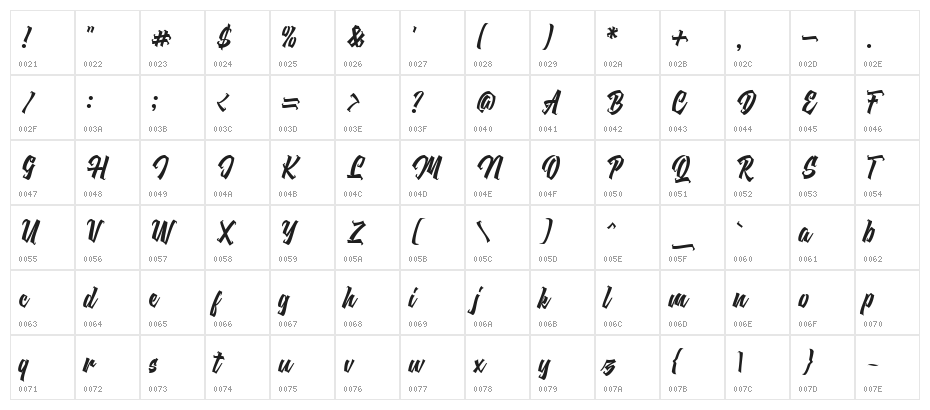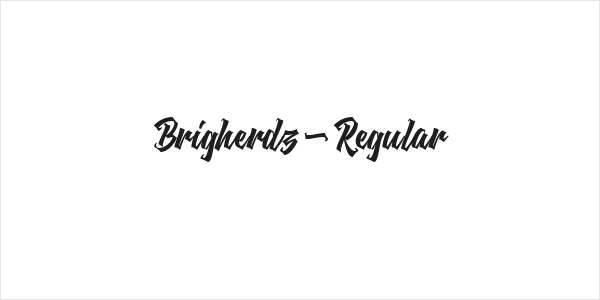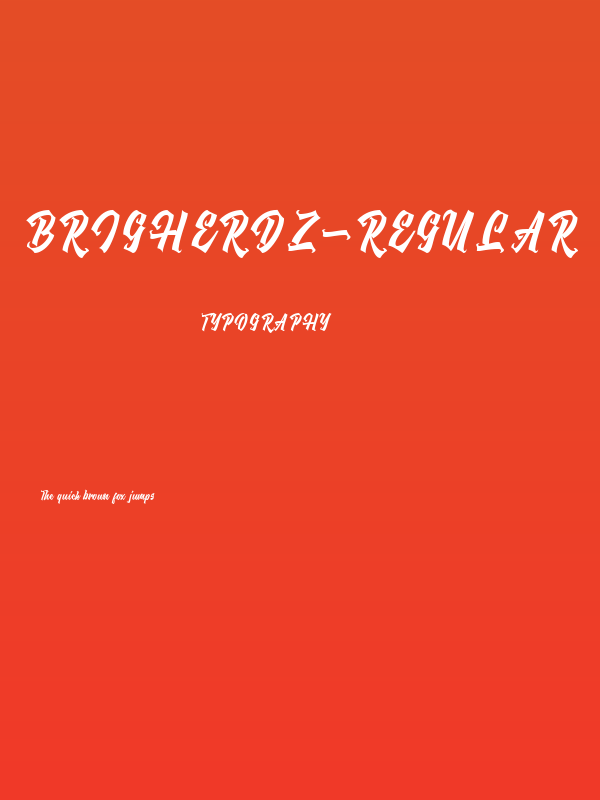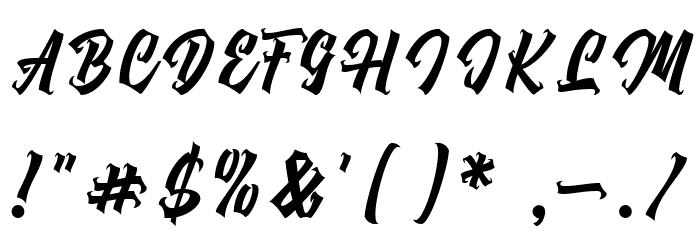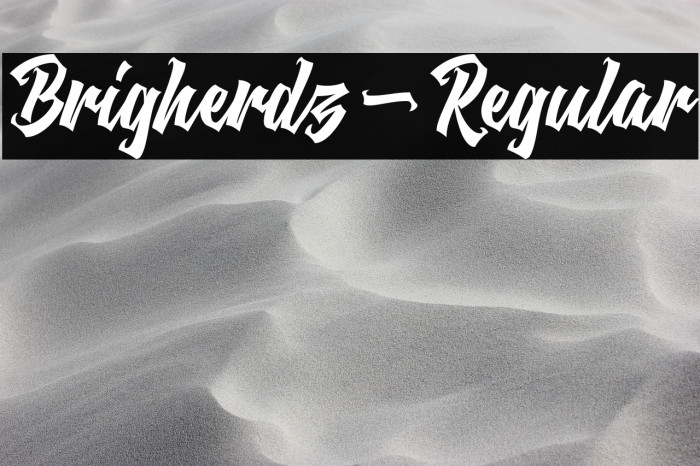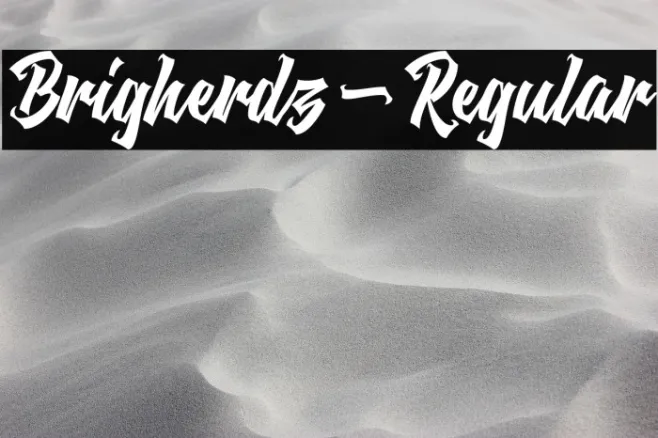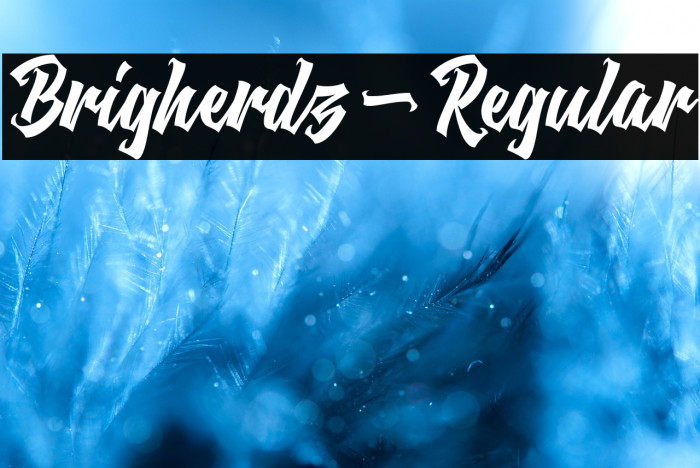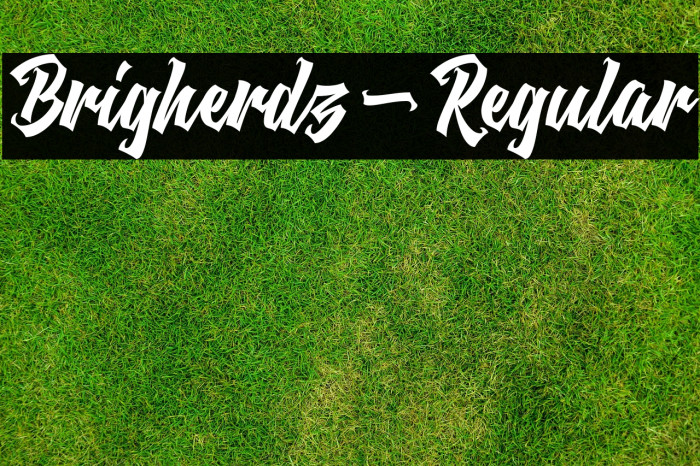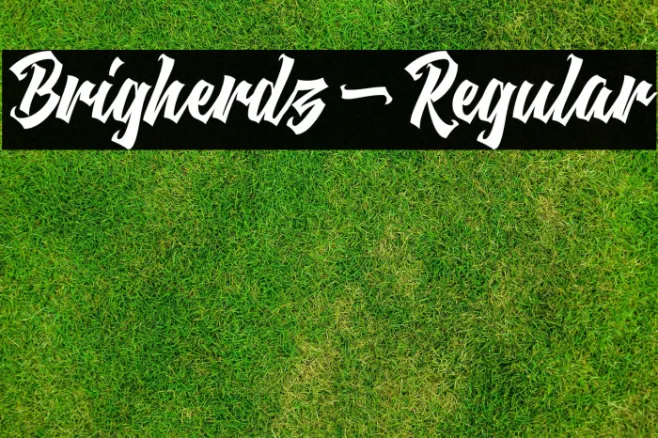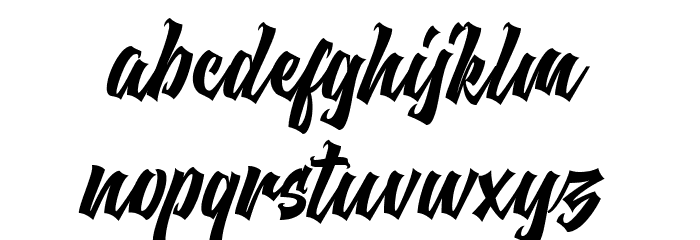
Brigherdz-Regular Font
This font exhibits a bold and dynamic script style with a strong presence. The characters are designed with sharp, angular strokes that give a sense of movement and energy. The uppercase letters are particularly striking, with exaggerated flourishes and a slightly condensed form that adds to their impact. The lowercase letters maintain the same energetic style, with smooth connections between characters that enhance readability. The numbers and special characters are consistent with the overall design, featuring the same bold strokes and angular forms. This font is ideal for creating eye-catching headlines or logos that require a touch of flair and personality.
| Proposed Projects | Ideal for branding, logos, headlines, posters, and any design requiring a bold, energetic script. |